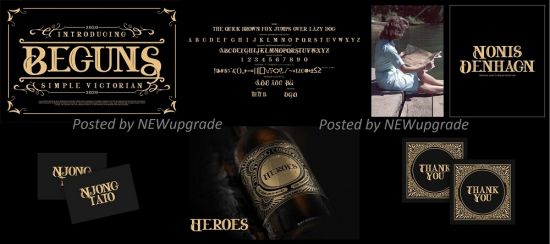
DesignOptimal - Beguns Simple Victorian Font
DesignOptimal.com - Beguns Simple Victorian Font
**Beguns | Simple Victorian** with a calligraphy style, So beautiful on invitation like greeting cards, branding materials, business cards, quotes, posters, and more!